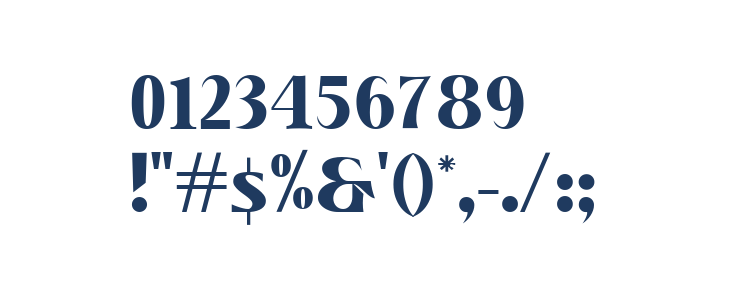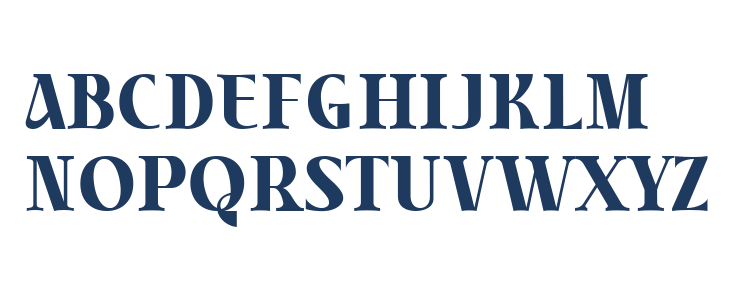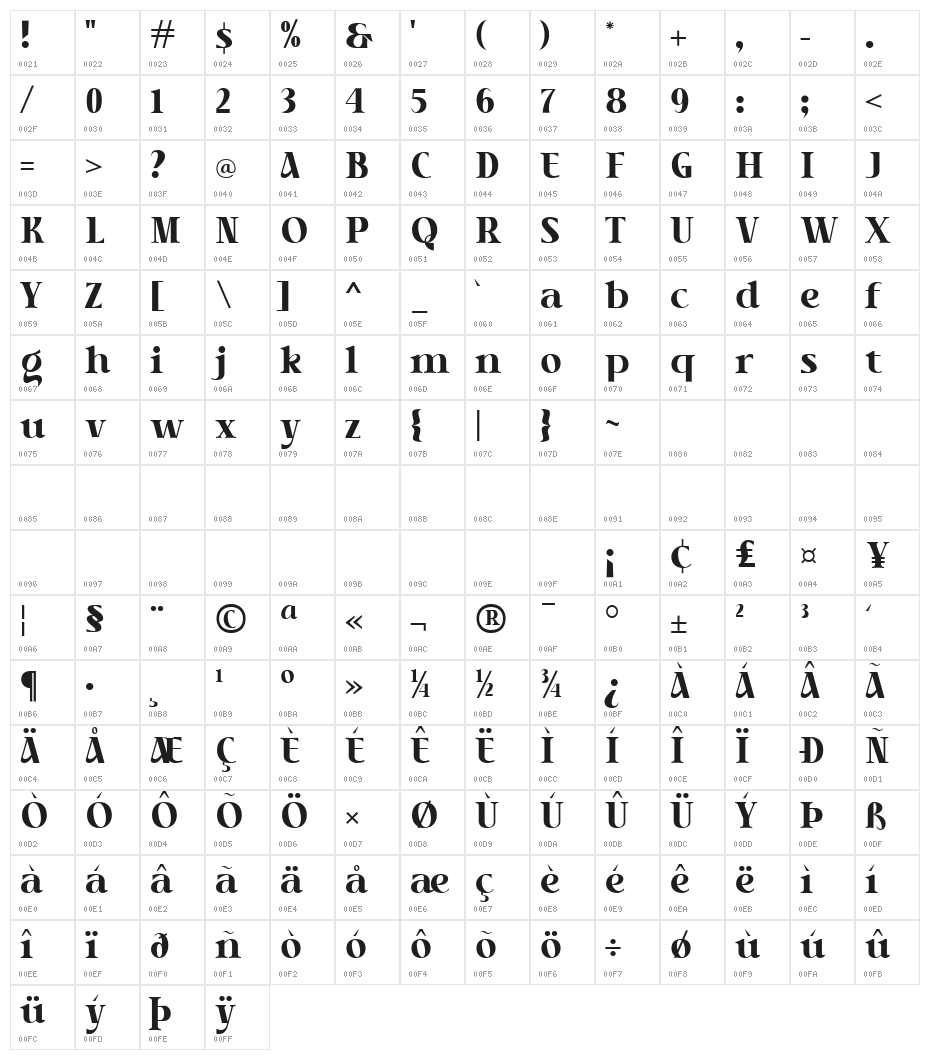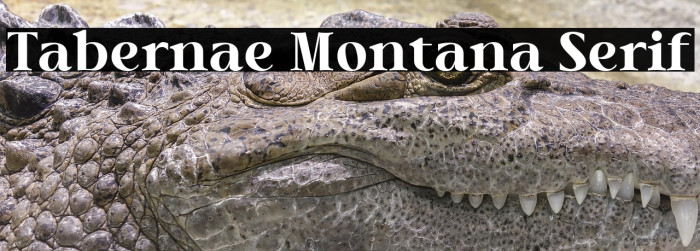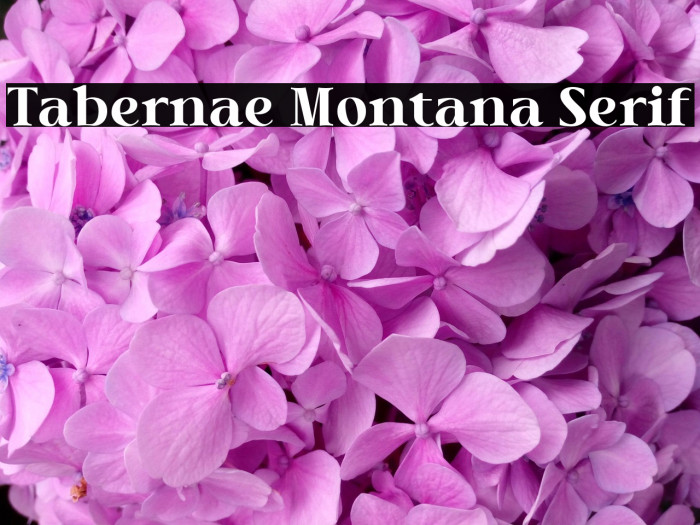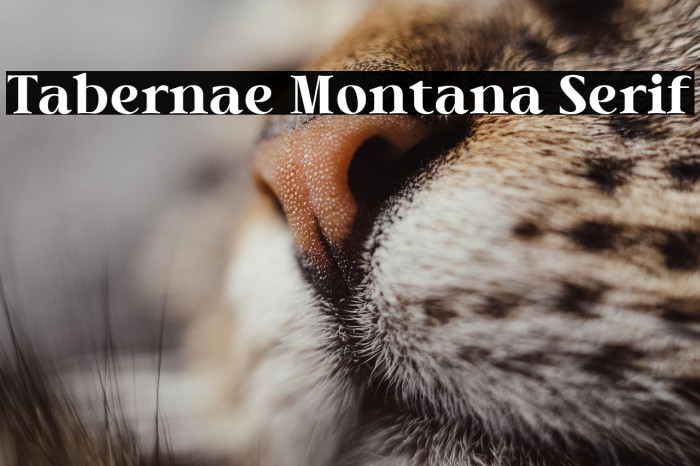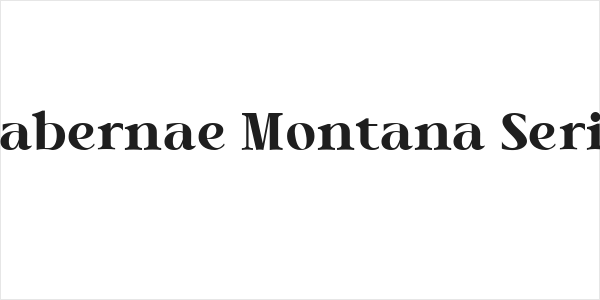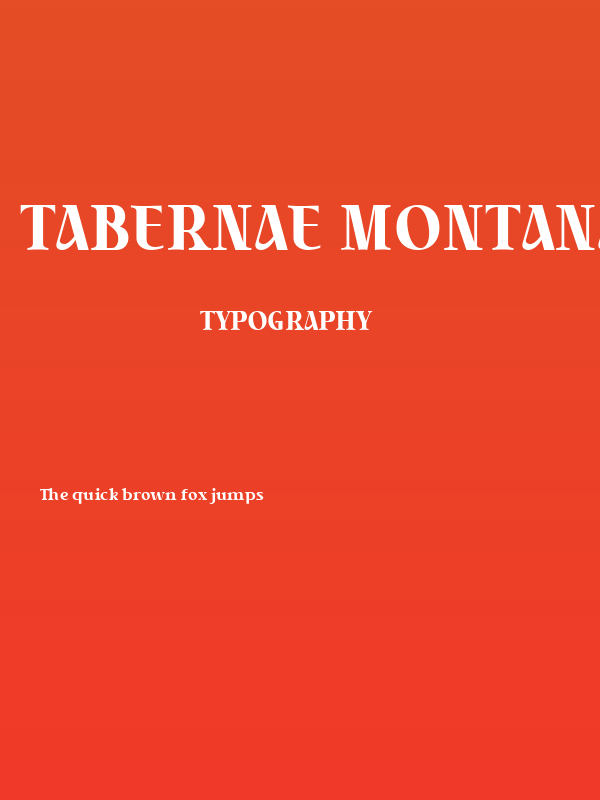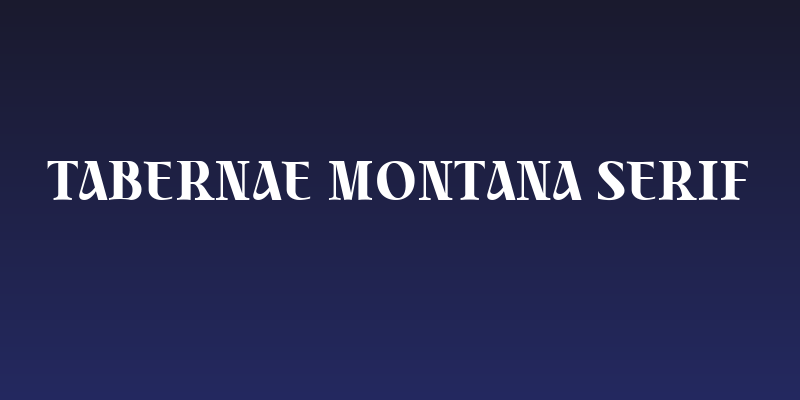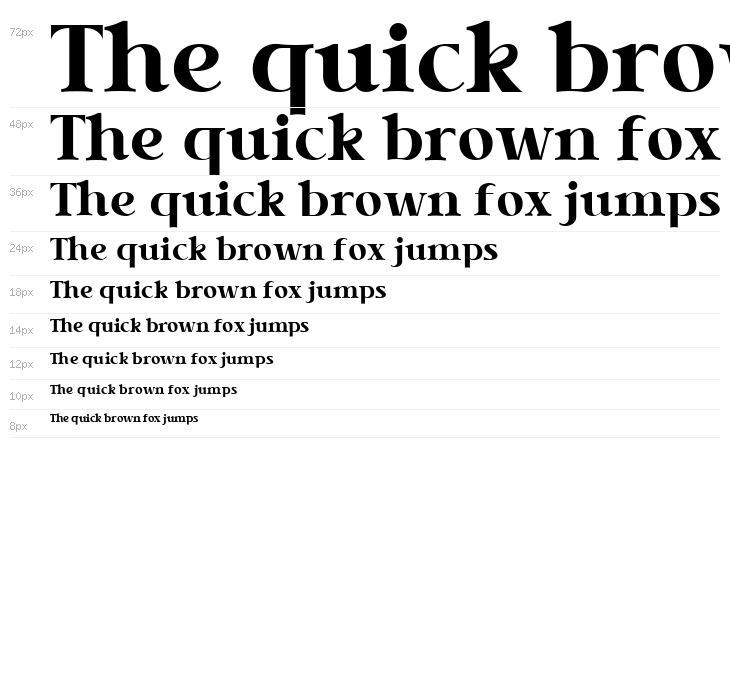
Tabernae Montana Serif Font
Tabernae Montana Serif Description
A serif typeface with strong contrast between thick and thin strokes, featuring sharp, bracketed serifs and distinctive, slightly condensed letterforms. The font has a classic, elegant appearance with some unique character details such as the curved tail on the lowercase 'g' and the stylized ampersand.
| Overall Style | Classic with decorative elements |
| Use Case | Headlines, logos, editorial text |
| Proposed Projects | Editorial design, book covers, luxury branding, headlines, invitations. |